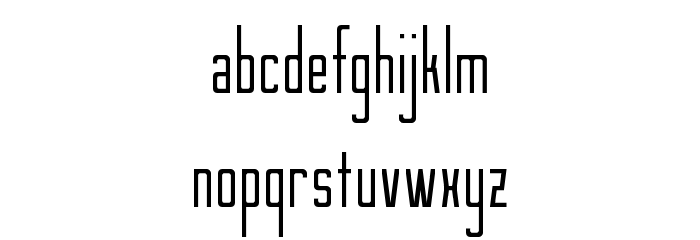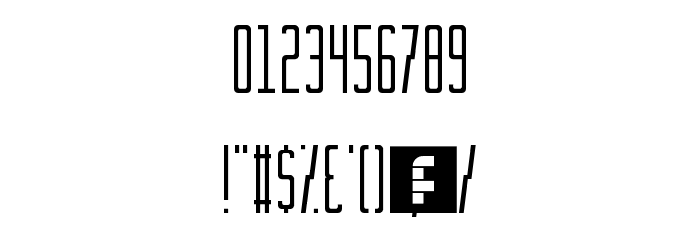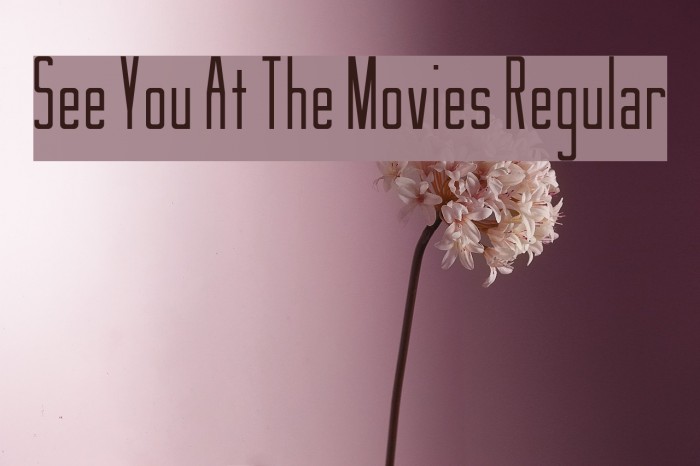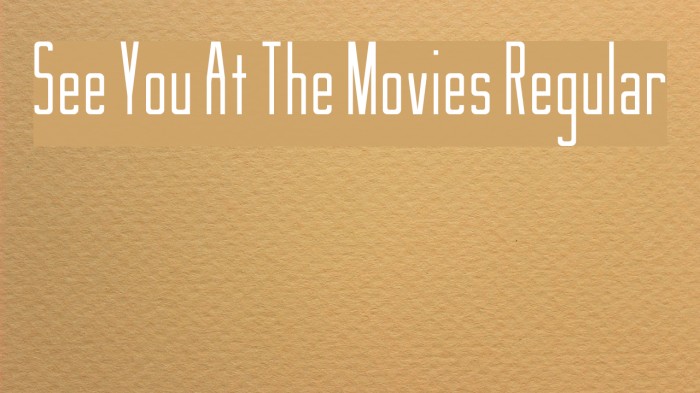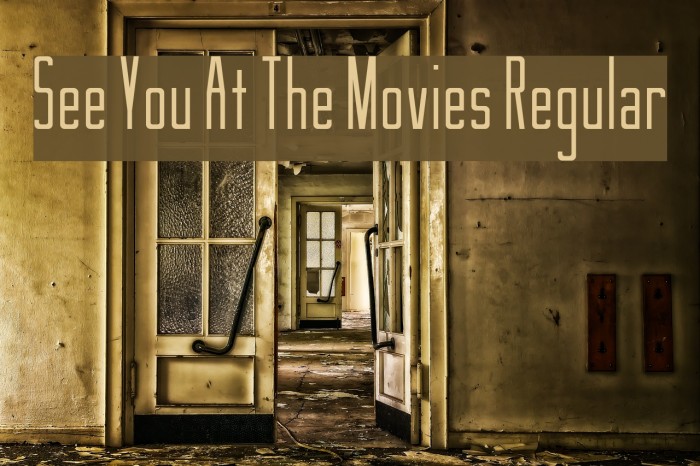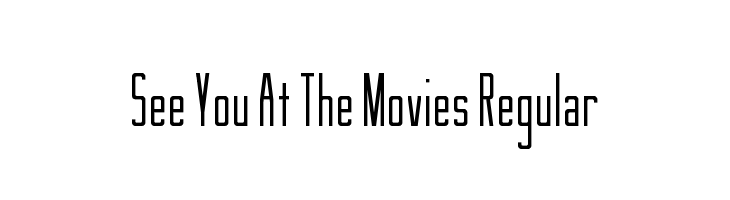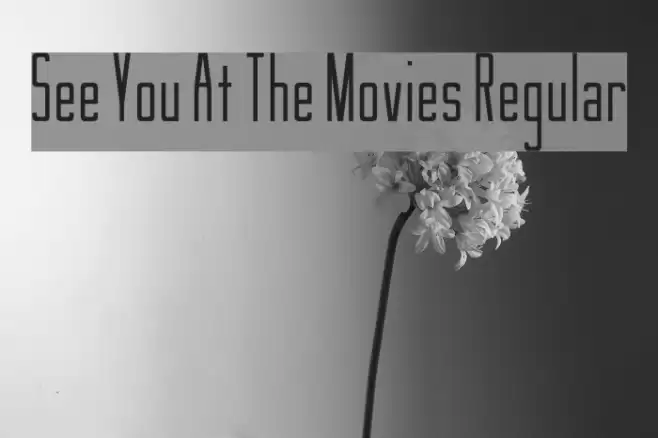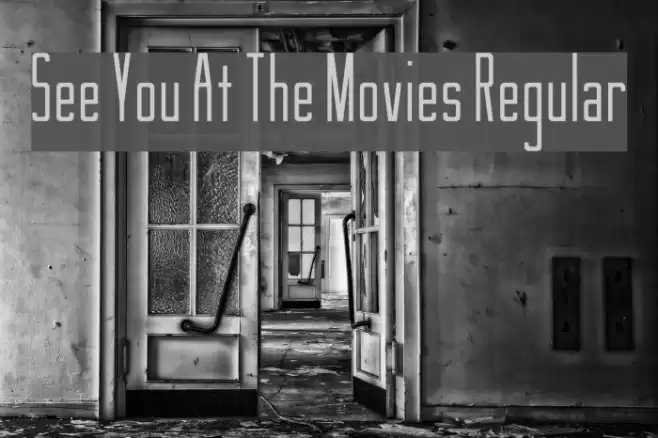
See You At The Movies Regular Font
This font features a tall, narrow design with a distinctly modern and geometric aesthetic. The uppercase letters are elongated, giving a sleek and sophisticated appearance. The lowercase letters maintain a consistent height, complementing the uppercase with a slightly rounded touch. Numbers are uniform in height, matching the uppercase letters, and the special characters are designed to blend seamlessly with the overall style. The font's clean lines and minimalistic approach make it suitable for a variety of design applications, offering a contemporary feel that is both stylish and versatile.
A tall, narrow, and modern geometric font with a sleek design.
- Proposed Projects: Ideal for movie posters, modern branding, digital media, and editorial design.